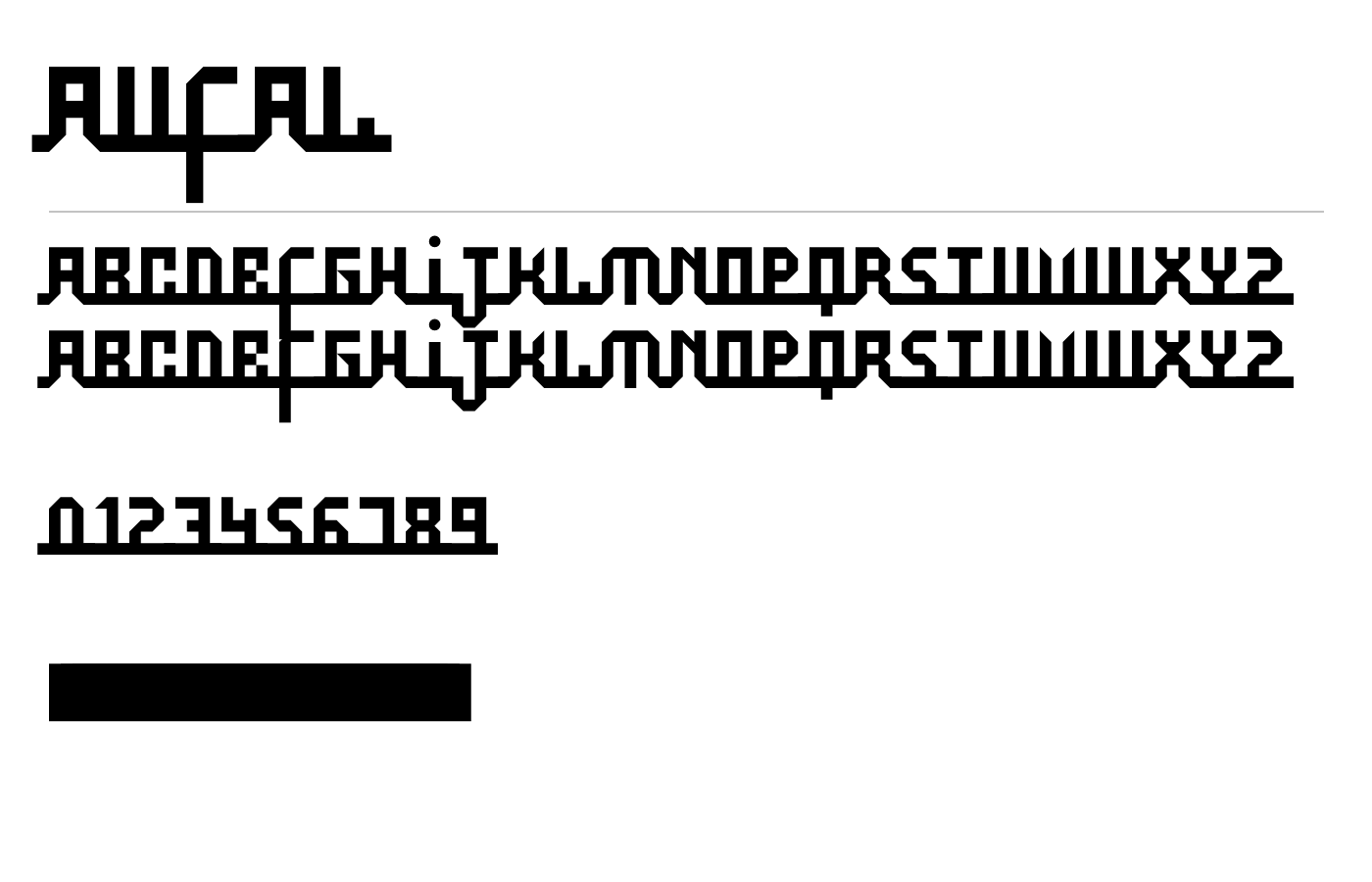
Aufal Font is a bold, geometric sans serif typeface with a distinct blocky, futuristic style. Its sharp angles and consistent stroke weight give it a strong, industrial feel, making it ideal for tech, gaming, and modern branding projects that want to convey innovation and strength. This font works best in headlines, logos, and display uses where a unique, eye-catching statement is needed.
Aufal Font
About Aufal Font
| Designer | Muhammad Rizky Ariesto |